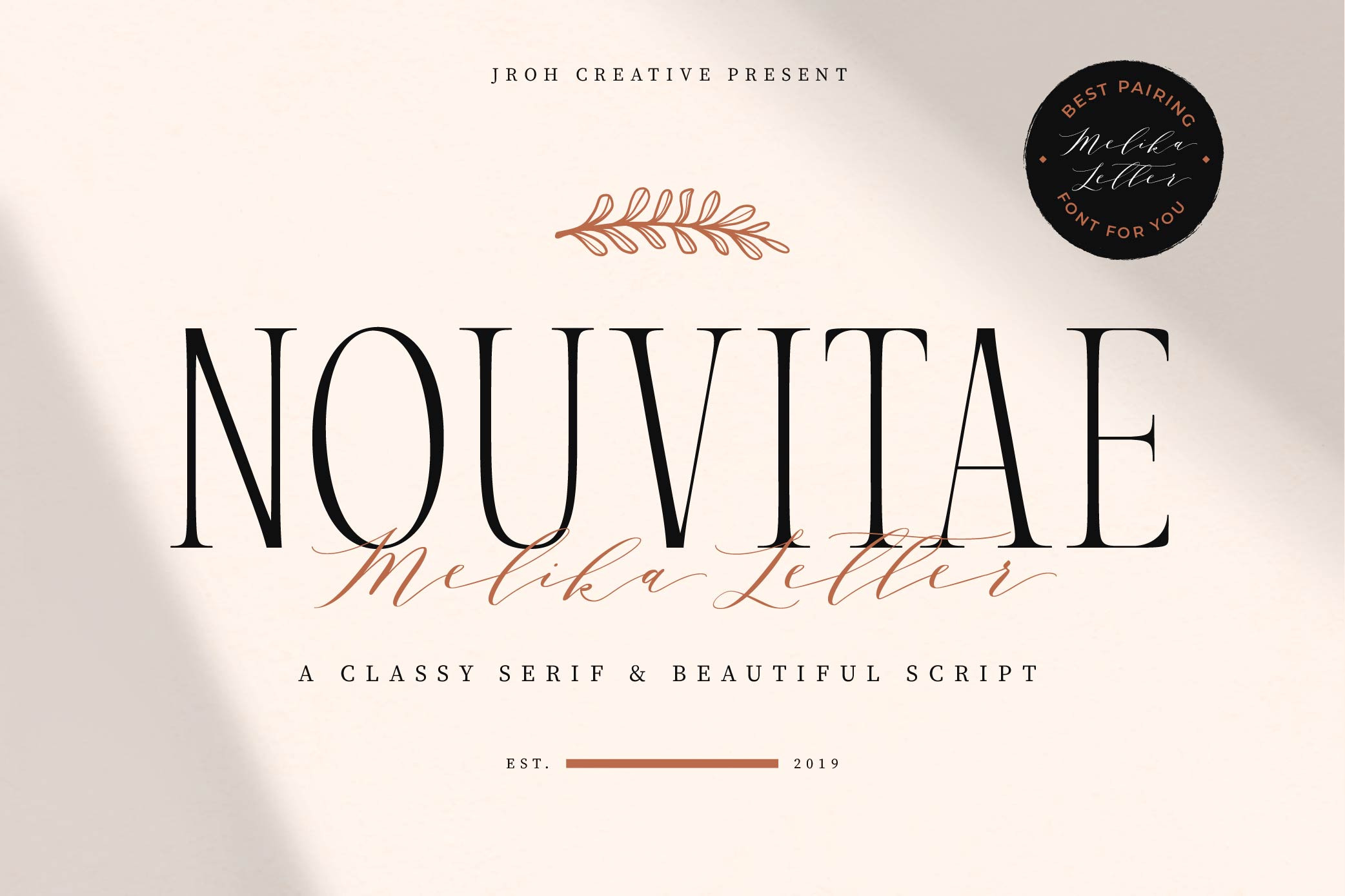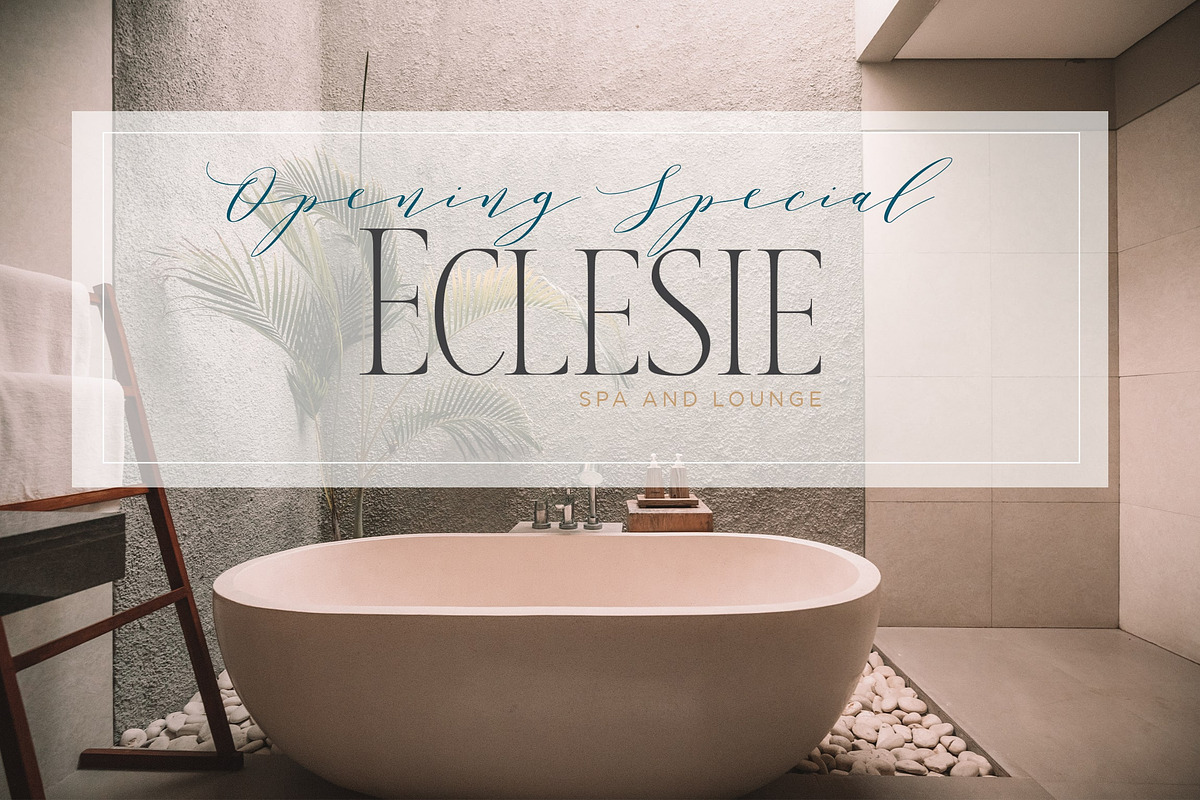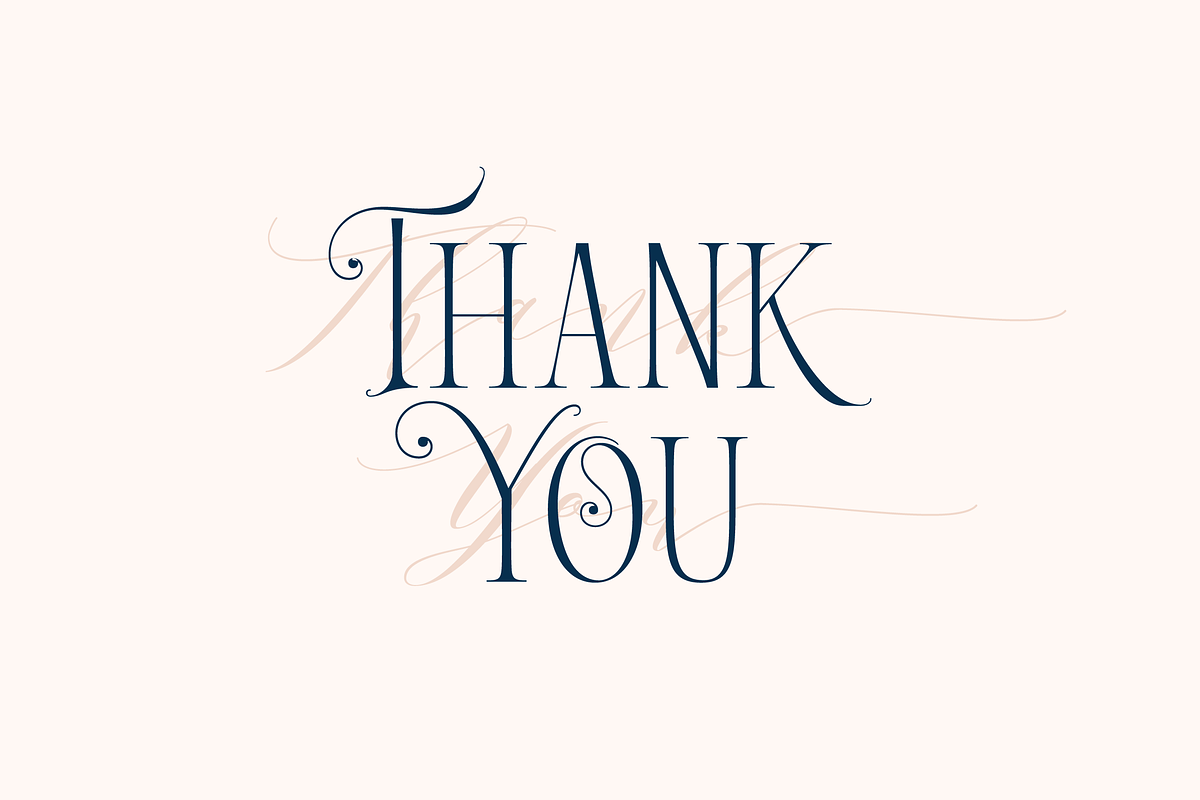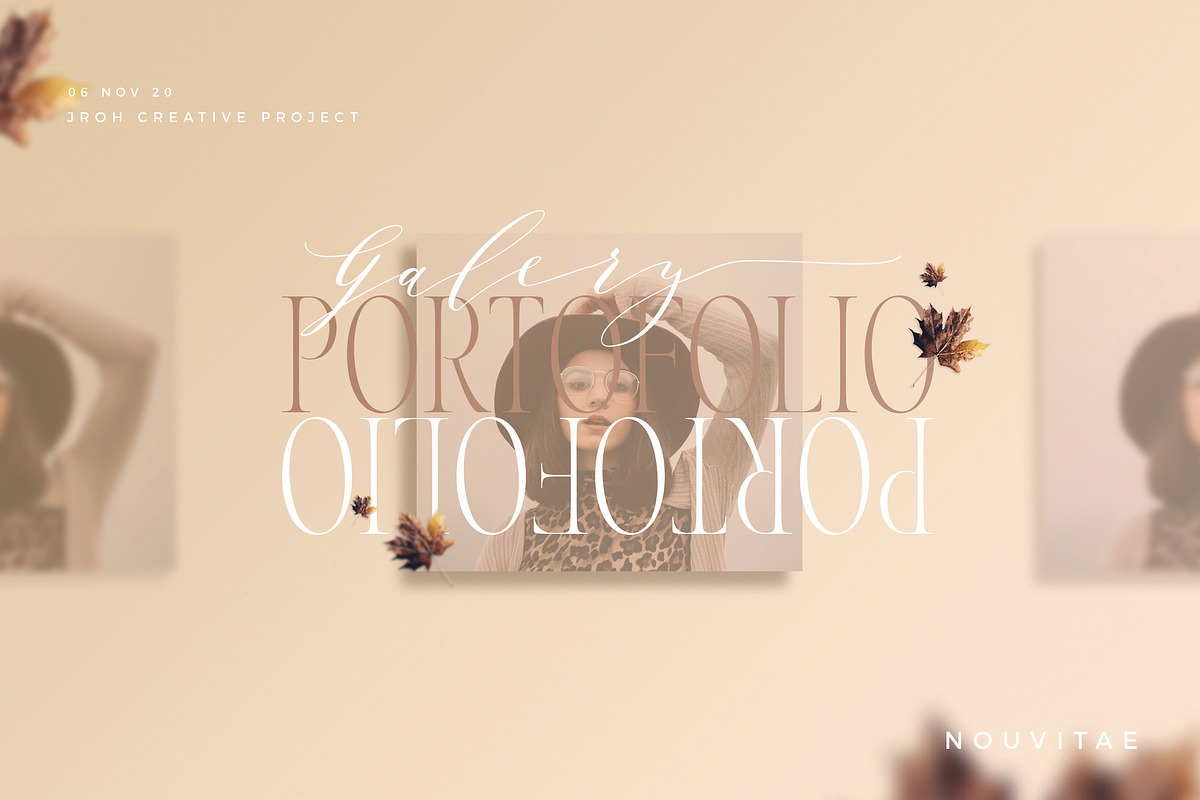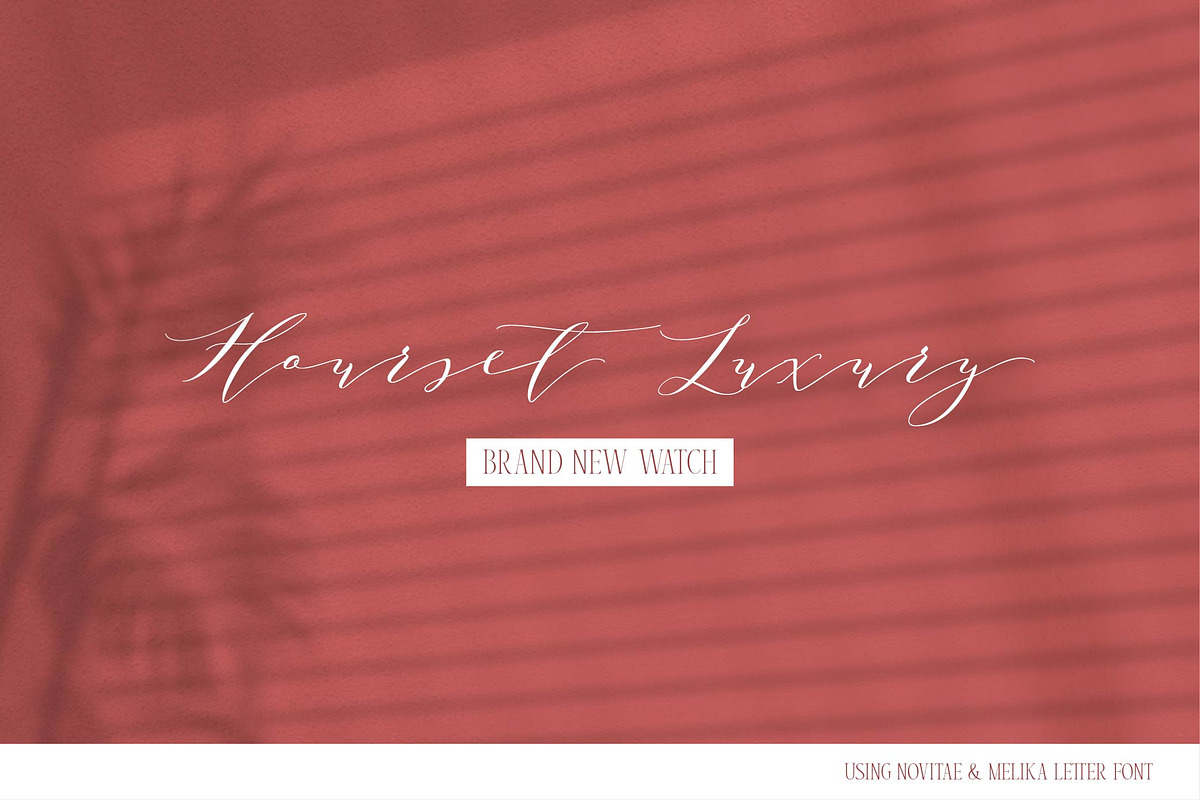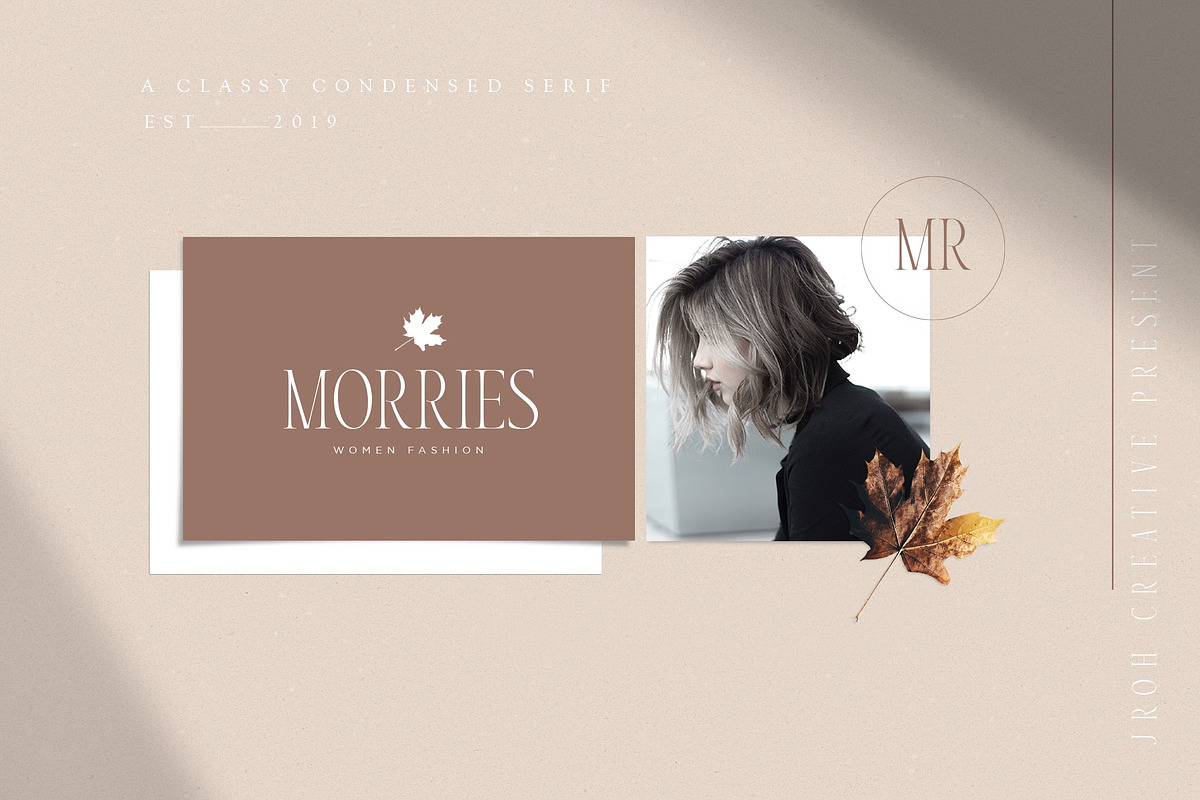
Nouvitae & Melika Letter | Font Pack
Hi..Please welcome this Beautiful Font Pack! Best pairing ever! A Classy Serif & Beautiful Script
Nouvitea is our new brand serif font that crafted carefuly with love and passion to create an elegant, fresh, clean, simple, unique and sweet.
Melika Letter, Hand Lettered Calligraphy Font with beautiful wave and natural flow. This fonts is the sister of Melika Script. have unique letter, with natural handdrawn style, and has a softer and smoother character with finely connected all of characters.
This font pack is suitable or weddings, invitations, greeting cards, quotes, posters, branding, name card, stationary, design title, blog header, art quote, typography art, modern envelope lettering or book design, happening style like handdrawn design or watercolor design theme, craft design, any DIY project, book title, wedding font, pop vintage design, or any purpose to make our art/design project look pretty and trendy.
OpenType features such as;
- Standard Ligatures,
- Contextual Alternates
- Stylistic alternates